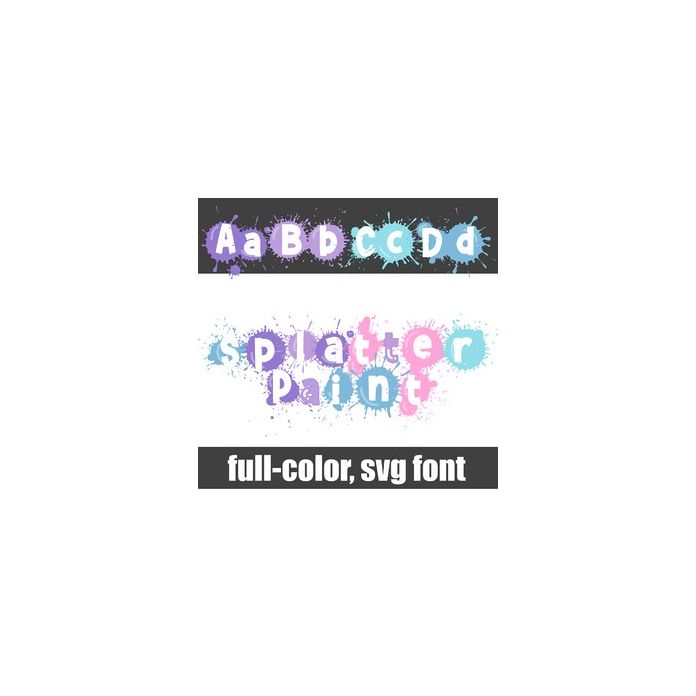
This full-color font features big splatters of paint in a unicorn color palette. There is an alt case w/ additional colors you can access through your system or Silhouette's glyph map.